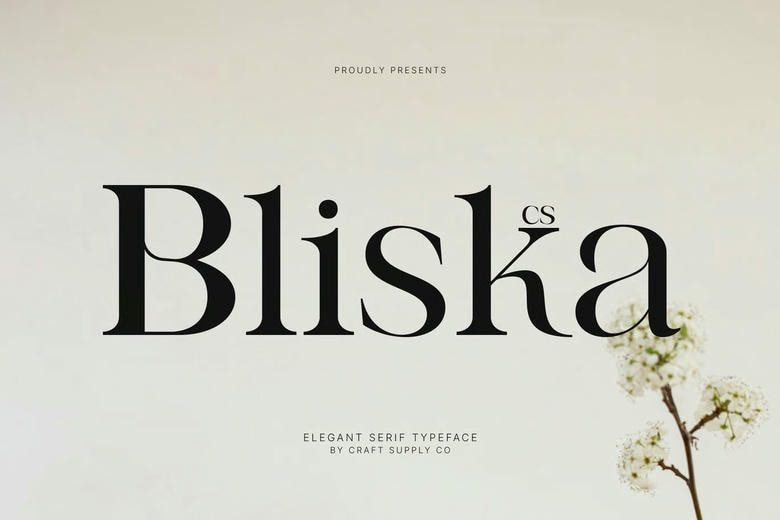
Bliska Font
Bliska is a fine serif typeface which conveys sophistication, tranquility and attractiveness. Its elegant typography and perfect proportions make it look sophisticated and classic and timeless. All the characters are designed to reflect the slightest elements of luxury and grace, which makes the font a soothing sight and aesthetically pleasing.
Feminine and Classy Personality This font has soft curves and looks delicately with serif details, which emanates a feminine and classy character. The font is soft and rather self-reliant, achieving the mixture of grace and clearness. The relaxing visual rhythm of it renders it ideal when the design seeks to convey beauty, sensitivity and high-end without being deemed to be overdone.
Fashion and Beauty Design This font is particularly ideal in the field of fashion branding, beauty products, and lifestyle images. It makes the magazines layouts, editorial headlines and logo designs graceful and sophisticated. Its beautiful design makes the content elevated and the balance and readability is also very good.
Flexible to Branding and Logos This is the font that gives a refined and memorable typographic voice whether in luxury branding, a magazine or a logo system. It is the best to be used by designers who are interested in having a serif font that sounds elegant, feminine, and peaceful and adds everlasting beauty and upscale style to any creative endeavor.